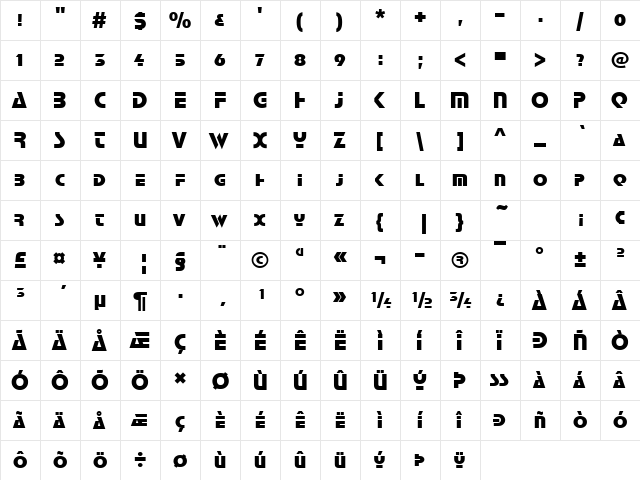
Stop Becker Caps Regular
Design Context for Stop Becker Caps Typeface
Stop Becker Caps is a composed and adaptable typeface that performs quietly and consistently across a wide range of design contexts.